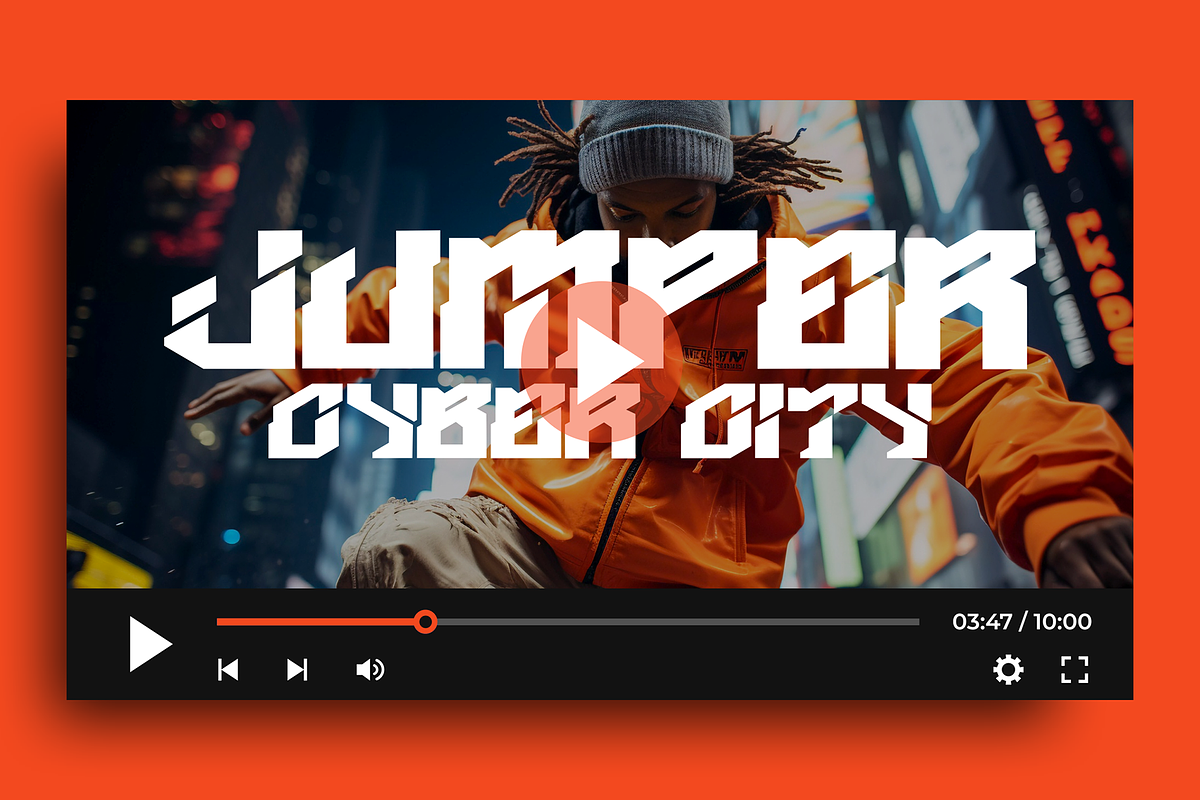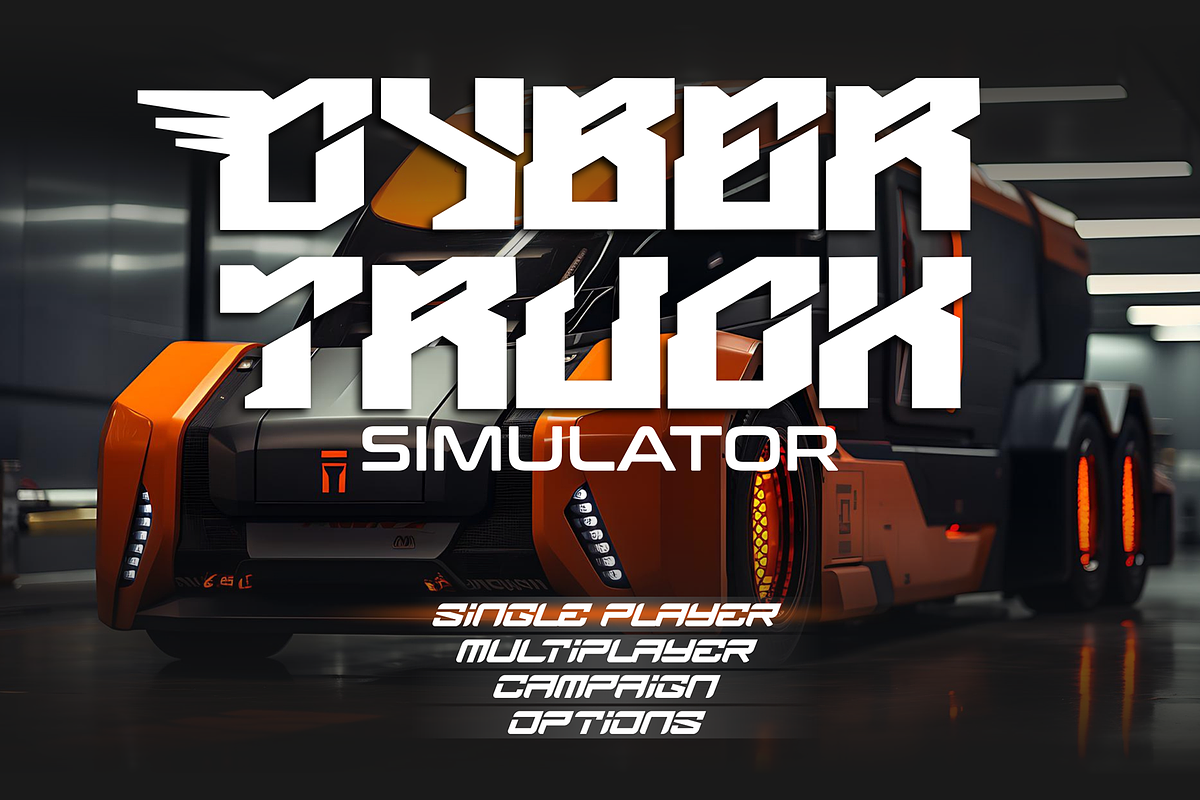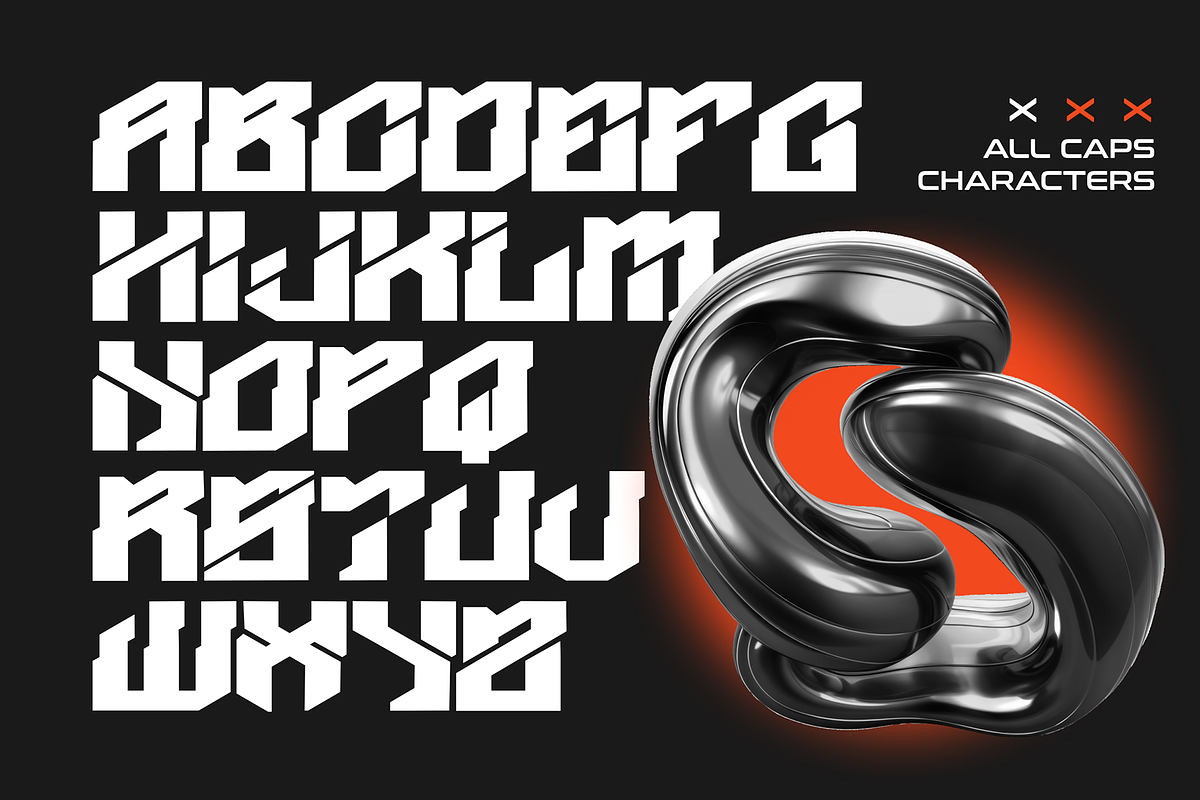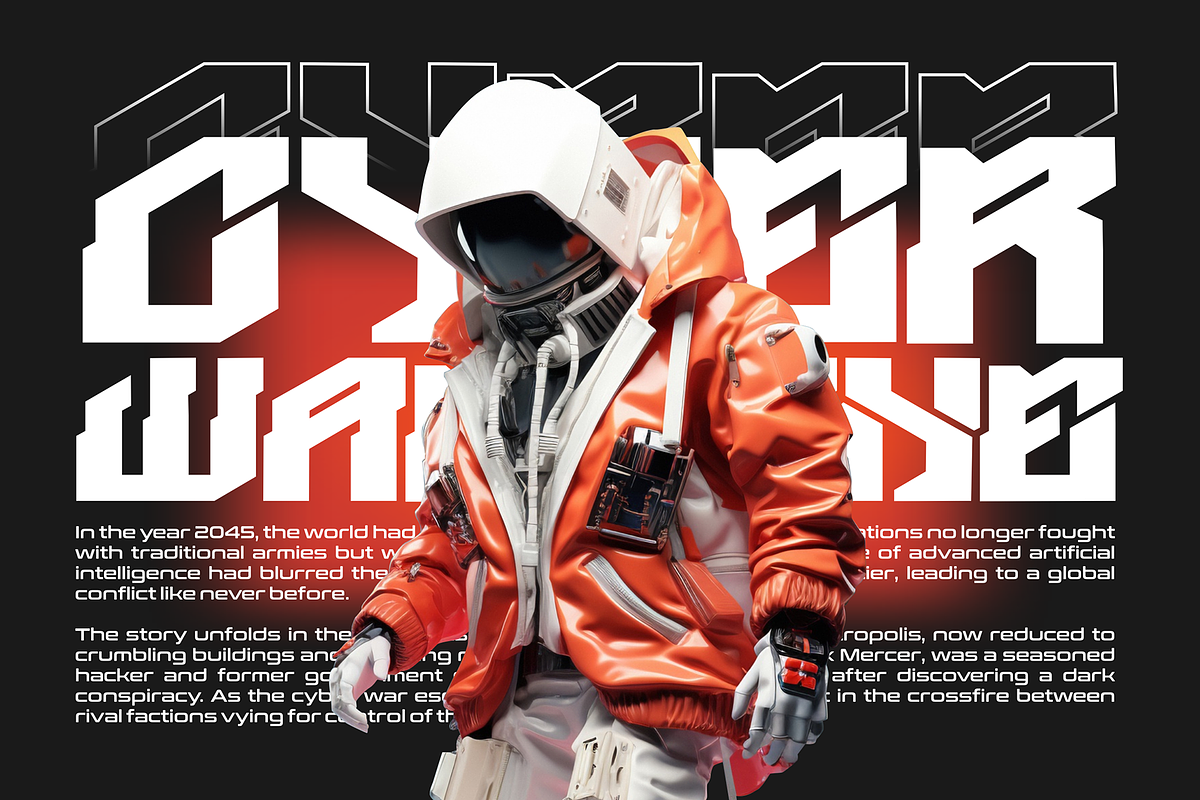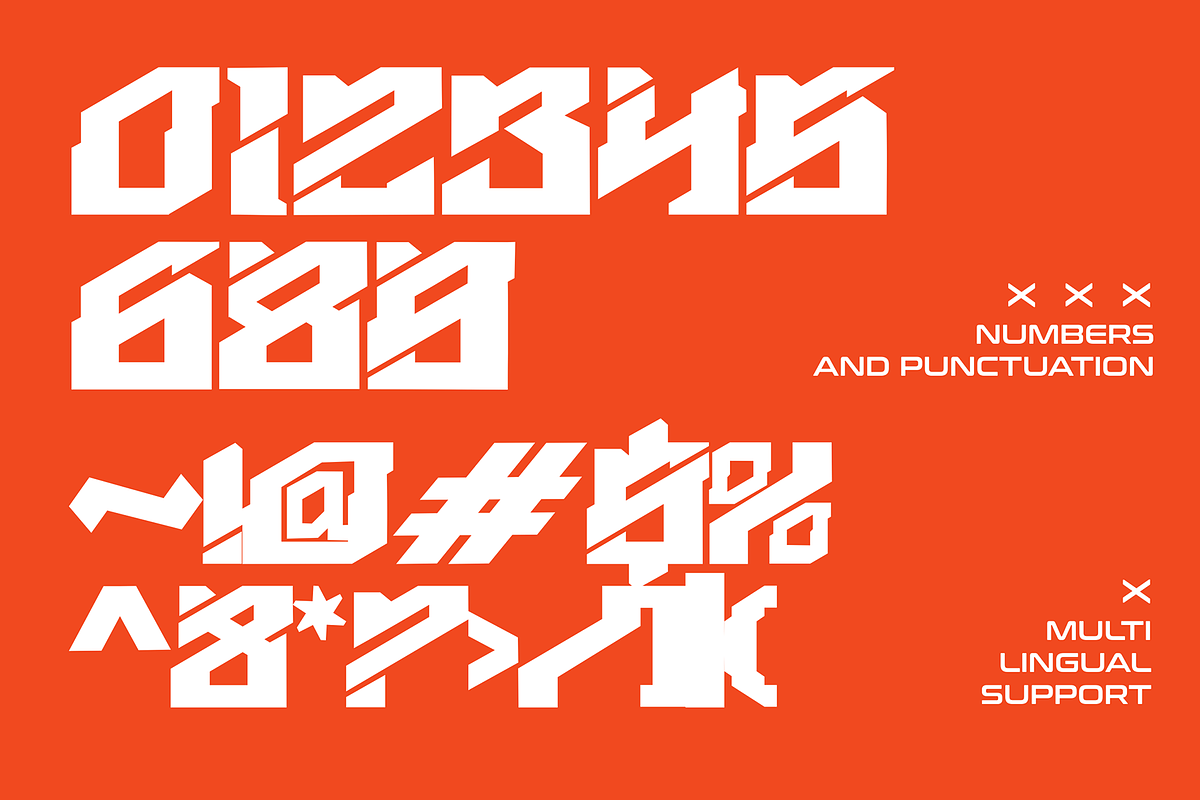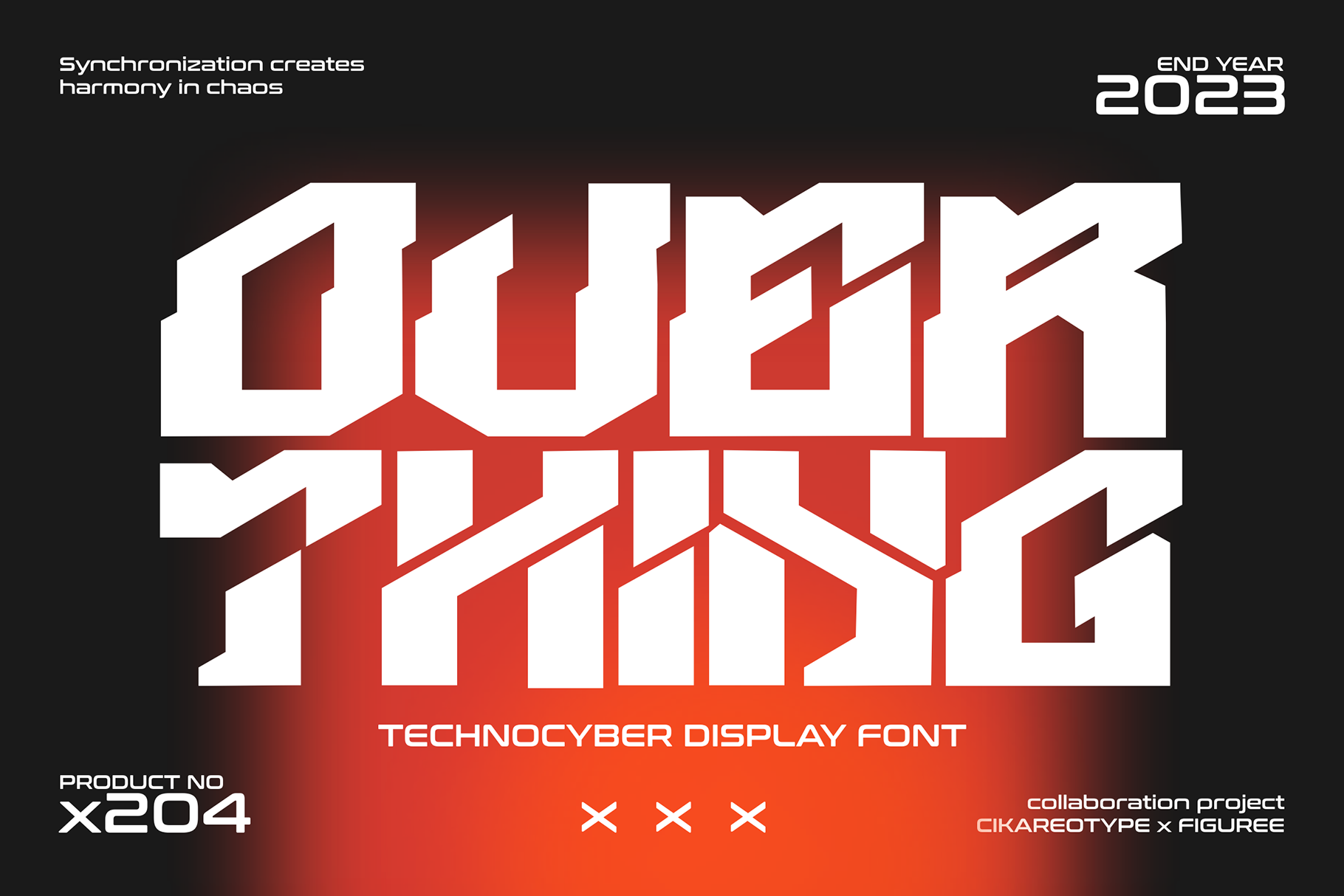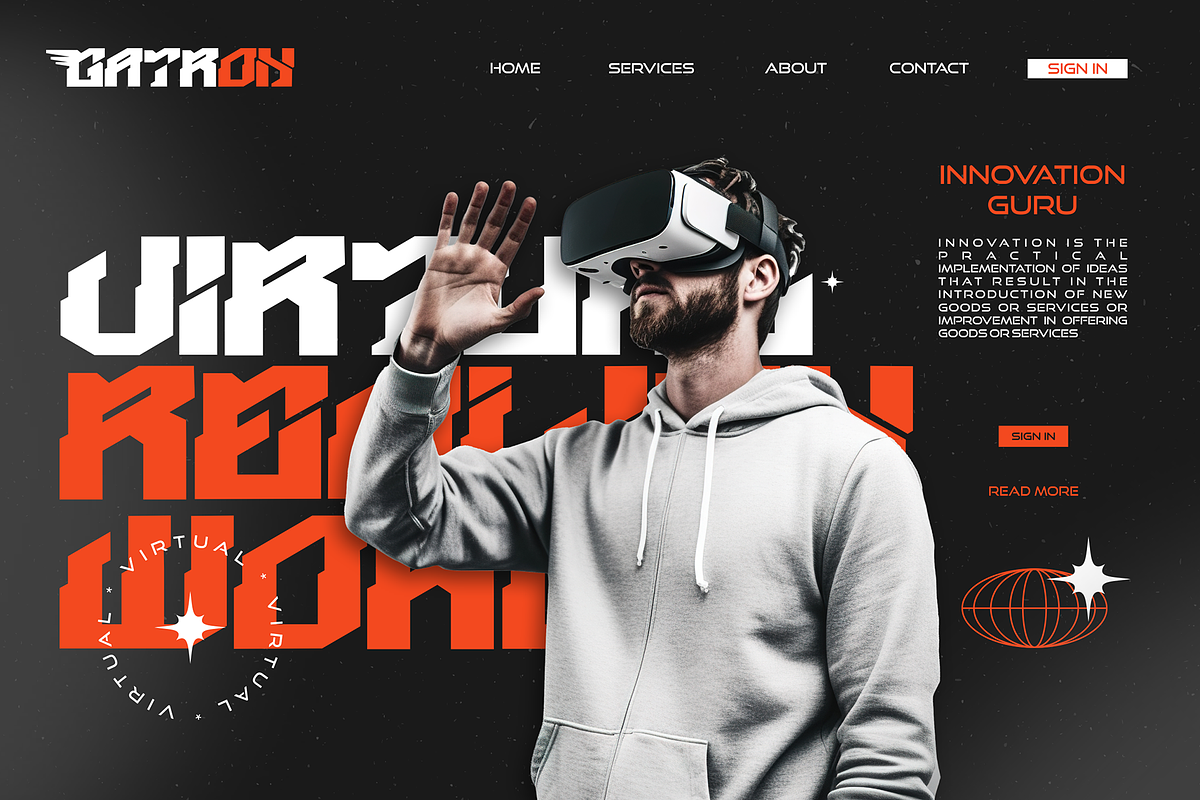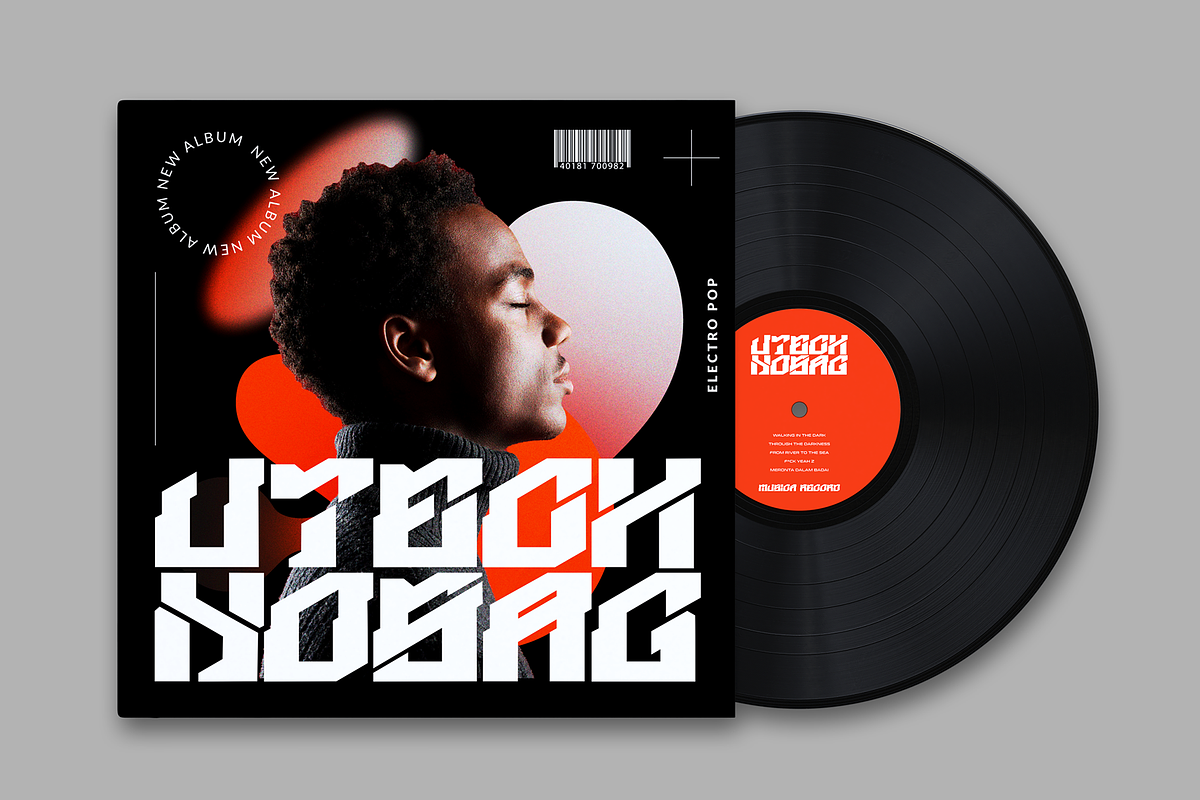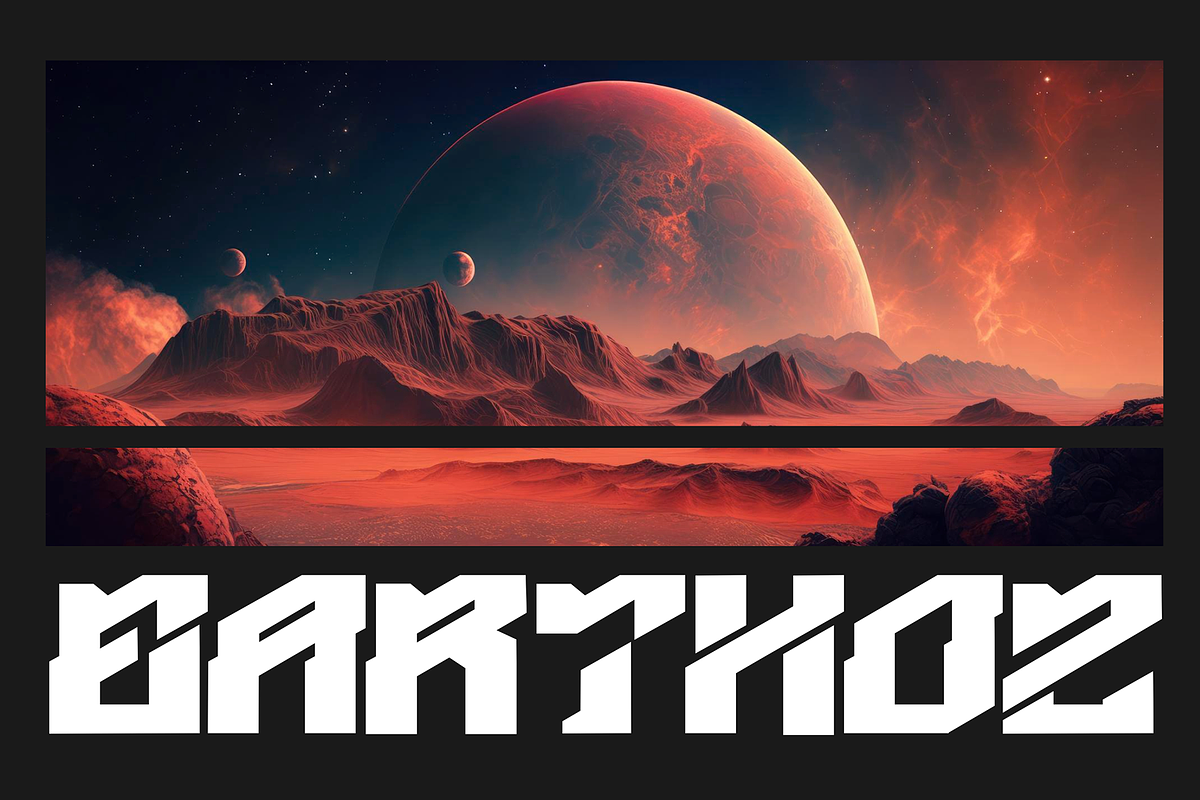
Overthing - Technocyber Font
Overthing isn't just a font; it's a surge of technocyber power, an electrifying typeface that propels your designs into the heart of futuristic aesthetics. Crafted with precision and a cyberpunk edge, each character embodies the essence of digital innovation, making Overthing more than a tool—it's a portal to the realms of advanced design.
In the world of technocyber display fonts, Overthing stands as a symbol of cutting-edge creativity. Every letter, sharp and dynamic, creates a visual symphony of technology and style. Overthing isn't just pixels on a screen; it's a design revolution, inviting you to embrace the future of typography. Let your words transcend into a digital saga, where Overthing becomes the language of innovation, pushing the boundaries of what's possible in the evolving landscape of futuristic design.